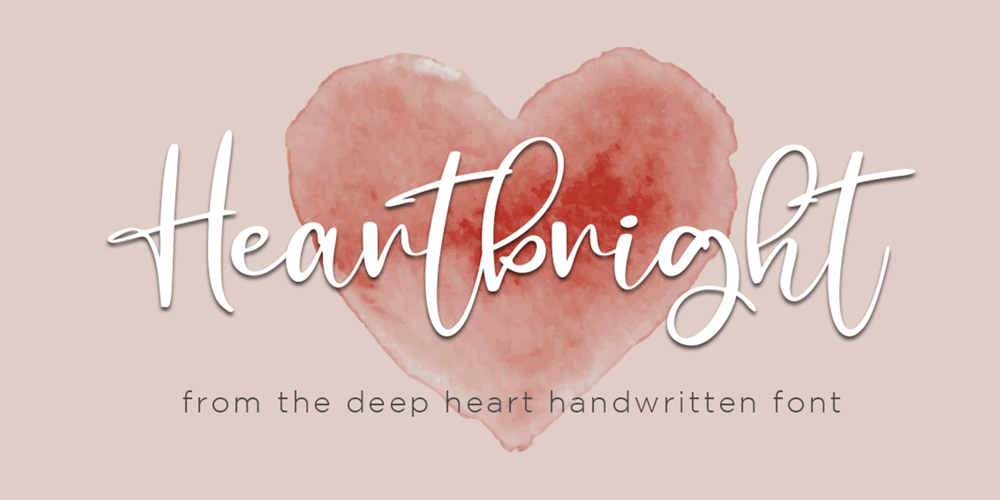
Heartbright Font Family was designed by Sarwo Edhi Prayitno and published by Haksen. Heartbright contains 1 styles and family package options. Heartbright Handwritten Script FontIntroducing the warm handwriting “Heartbright” Script Font!If you are needing a touch of casual modern calligraphy for your designs, this font was created for you!What’s Included: Uppercase and Lowercase Ligatures Number and Punctuation Support Language All above mentioned available in ( OTF )This font works best in a program that supports OpenType features such as Adobe Indesign, Adobe Illustrator CC and CS, or Adobe Photoshop CC and CS also CorelDrawMore Questions? Here are some (potential) answers! Do not to resell this font in any way. Multilingual Support is included for Western European Languages Cheers!